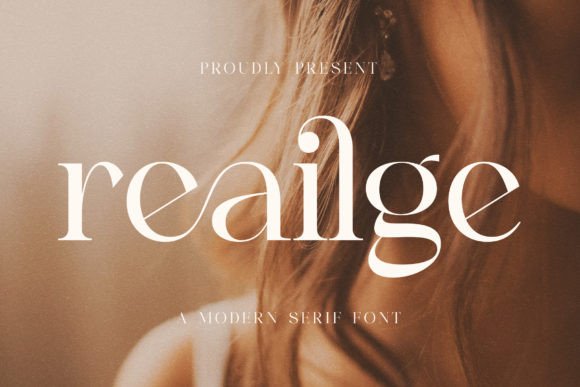
Immerse yourself in the world of Reailge, a font family that exudes elegance and charm. This modern serif font, meticulously crafted by Storytype Studio, captivates with its timeless beauty and contemporary flair, making it an exceptional choice for designers seeking to evoke a sense of romance and sophistication in their projects.
Reailge's intricate details and graceful curves add a touch of luxury to any design, whether it be a heartfelt letter, a captivating book cover, or a stylish fashion brand. Its versatility extends to magazine layouts, clothing designs, and eye-catching quotes, adding a touch of refinement and allure to every creation.
With Reailge, your words take on a new life, flowing effortlessly across the page with an air of grace and elegance. Each letterform is a work of art, carefully designed to evoke emotions and create a lasting impression on your audience. This font family is not just a collection of letters; it's an invitation to embark on a journey of creativity and self-expression.
Imagine the allure of a love letter penned with Reailge, where each word carries the weight of your heartfelt emotions. The curves of the letters mimic the gentle strokes of a lover's hand, guiding the reader through a tapestry of words woven with love and longing.
Envision the grandeur of a book cover adorned with Reailge, where the title emerges from the page like a whispered secret, inviting readers to delve into a world of enchantment and intrigue. The font's timeless elegance adds a touch of sophistication, hinting at the literary treasures that lie within.
Picture the allure of a fashion brand logo designed with Reailge, where the letters dance together in perfect harmony, exuding a sense of luxury and exclusivity. The font's refined lines and distinctive serifs create a visual feast that captivates the eye and leaves a lasting impression.